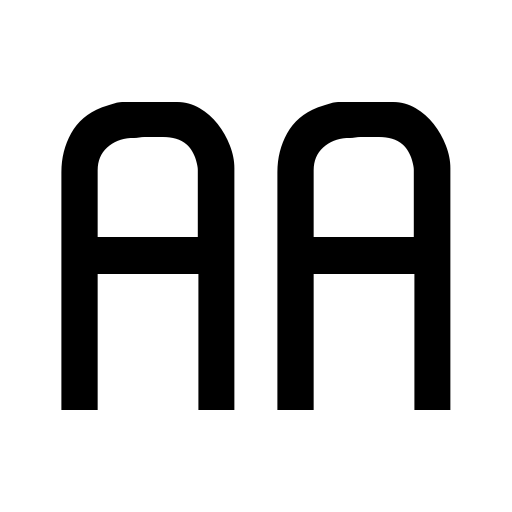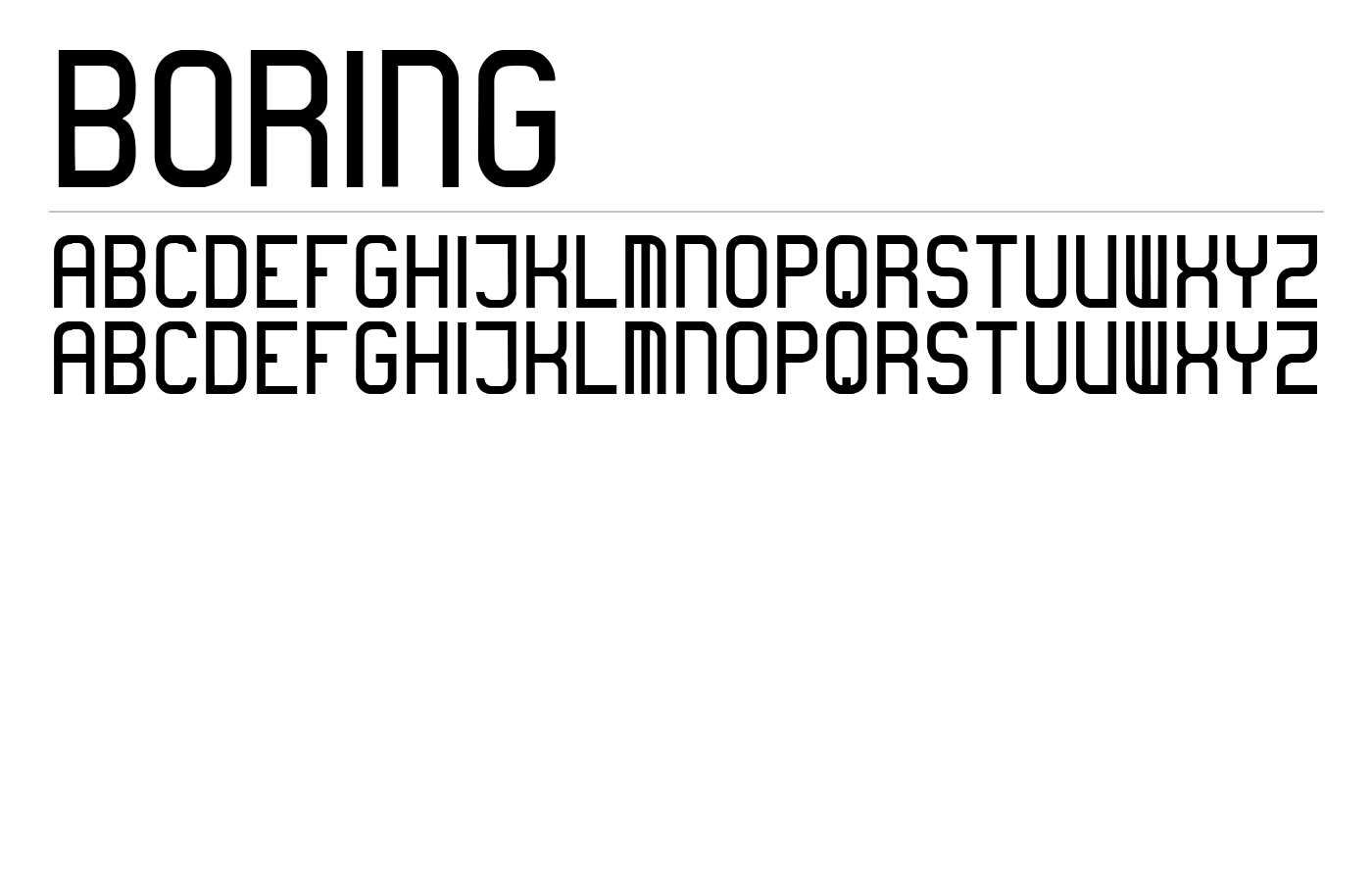
Boring Font is a condensed sans serif typeface with a modern, geometric style characterized by clean, straight lines and uniform stroke weight. Its tall x-height and narrow letterforms give it a sleek, technical feel, making it ideal for contemporary branding, headlines, and editorial design where space efficiency and clarity are important. This font’s minimalistic and structured appearance communicates professionalism with a futuristic edge, suitable for tech or industrial themes.
boring Font
About boring Font